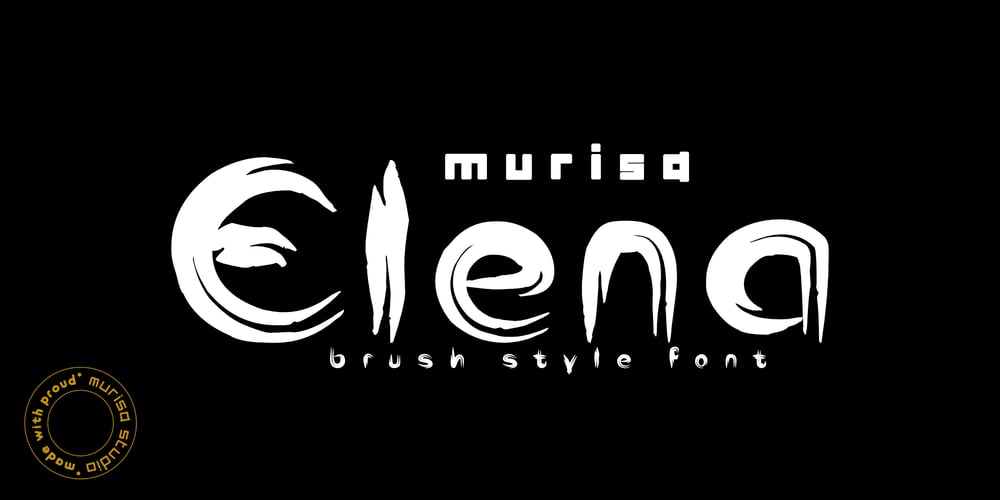
Murisa Elena Font Family was designed by Lili and published by Murisa Studio. Murisa Elena contains 2 styles and family package options. Murisa Elena is an attractive and attractive font. It has beautiful shapes like brush strokes on canvas. Very amazing fonts. You can use it to display your products or your personal and company logo. Murisa Elena appears with a perfect shape, just like you write with your favorite brush. Get it right now.